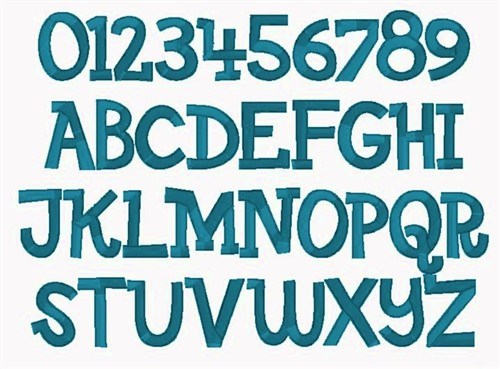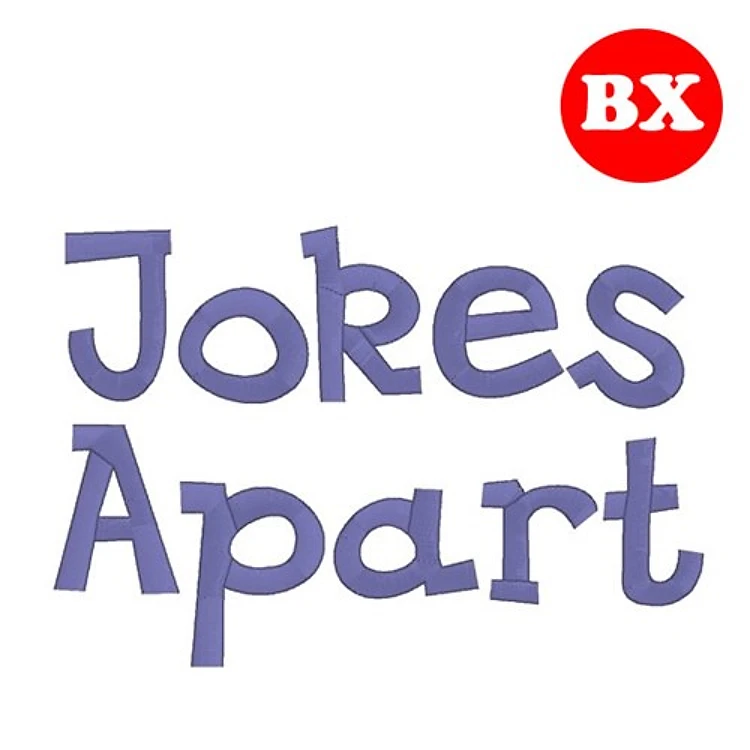
Jokes Apart Embrilliance Embroidery Font - Playful Block Alphabet Lettering - BX font by Unicorn Creatives and other embroidery fonts available at EmbroideryDesigns.com.
Unicorn Creatives is happy to present Jokes Apart Embrilliance Embroidery Font - Playful Block Alphabet Lettering - BX font machine embroidery font which has This playful block style machine embroidery font in soft purple suits lighthearted projects like kids' apparel or decorative pillows. Available in BX font and Embrilliance. included. If you would like to view more embroidery fonts and alphabets please search our embroidery fonts page.